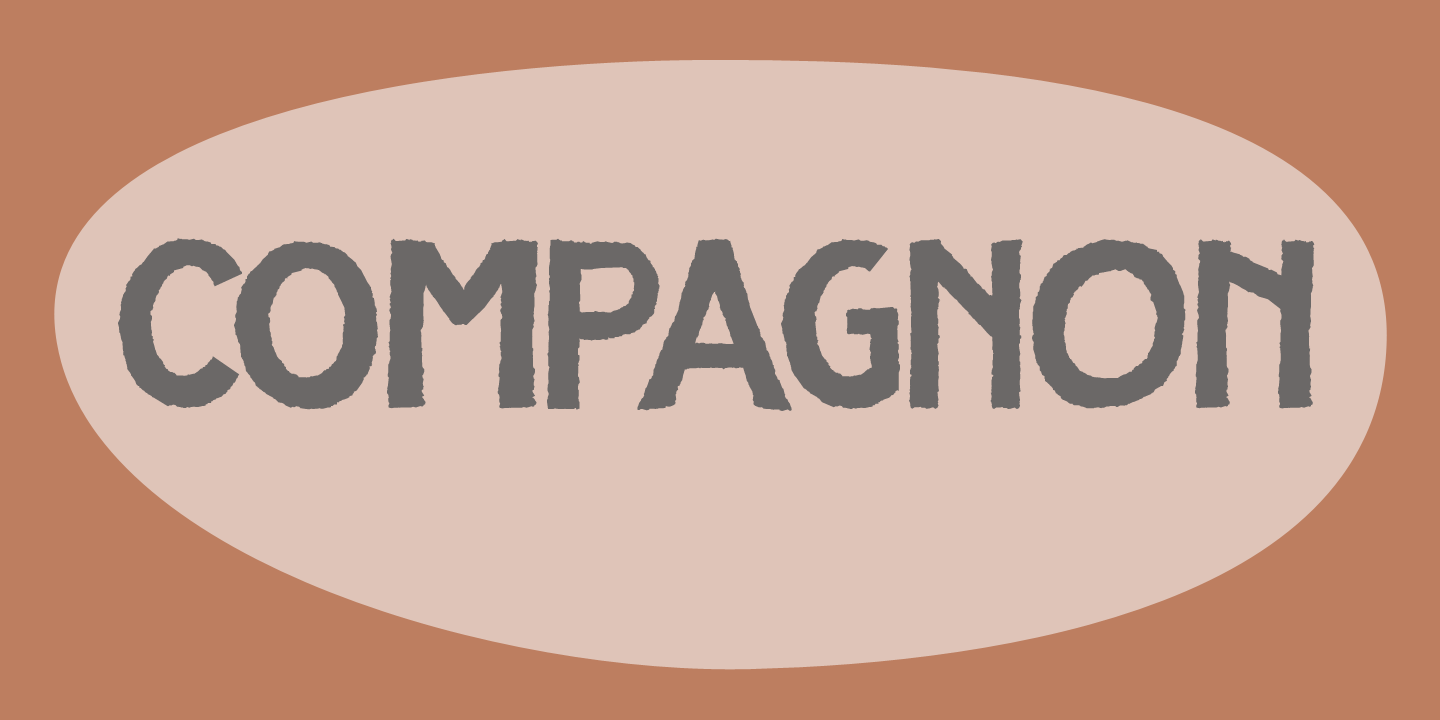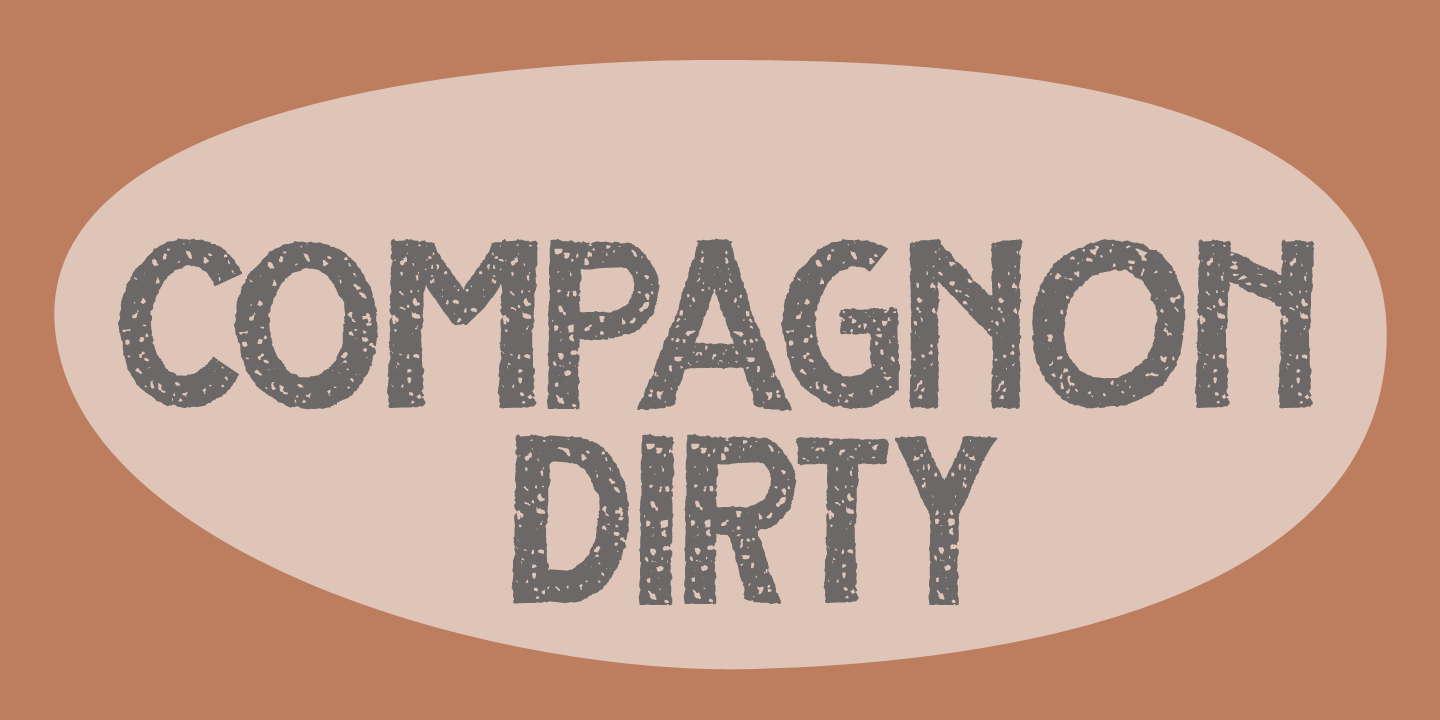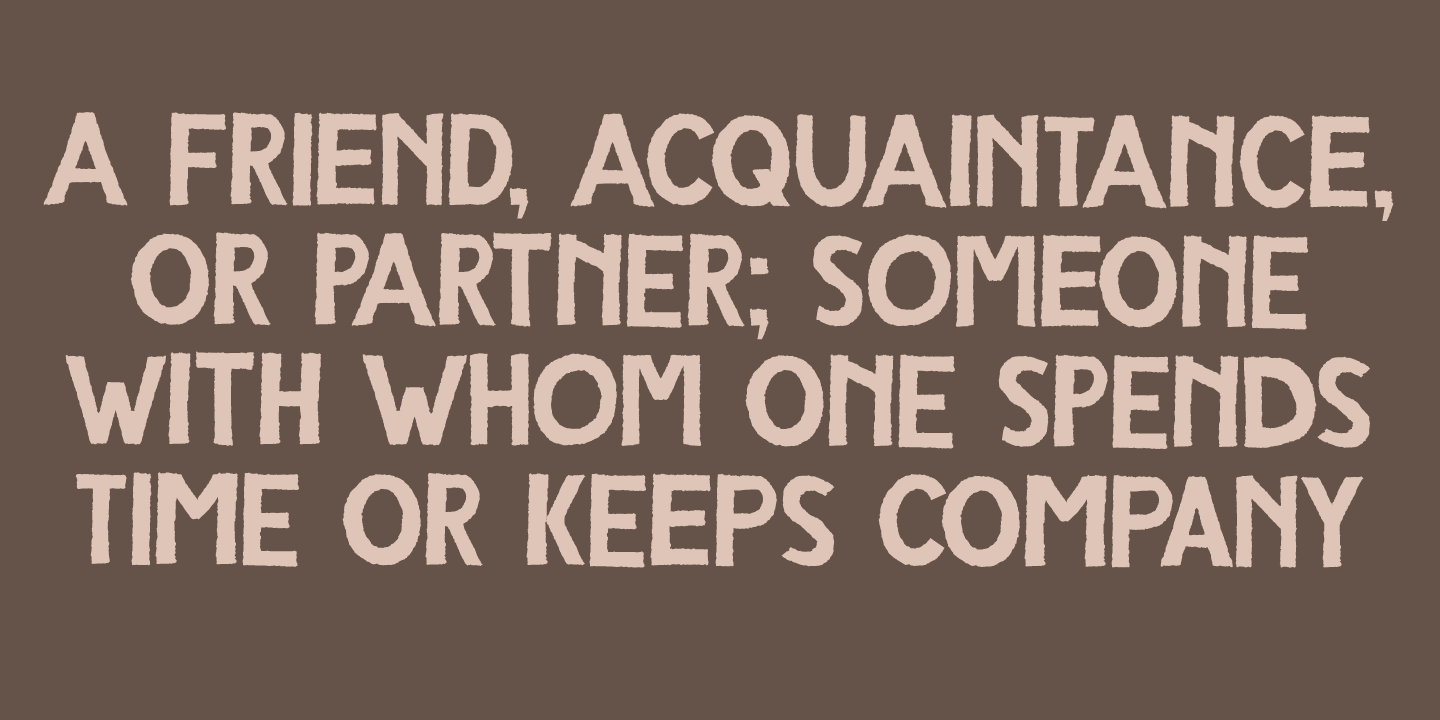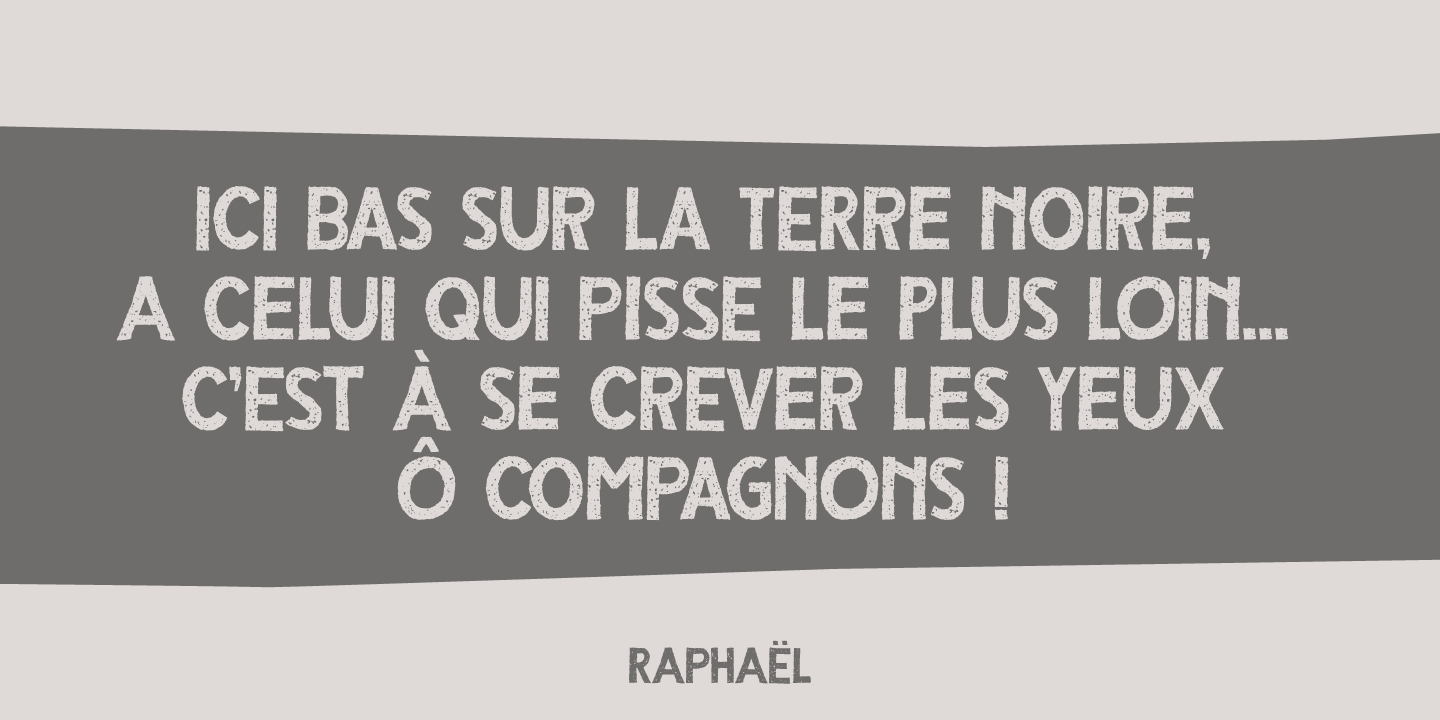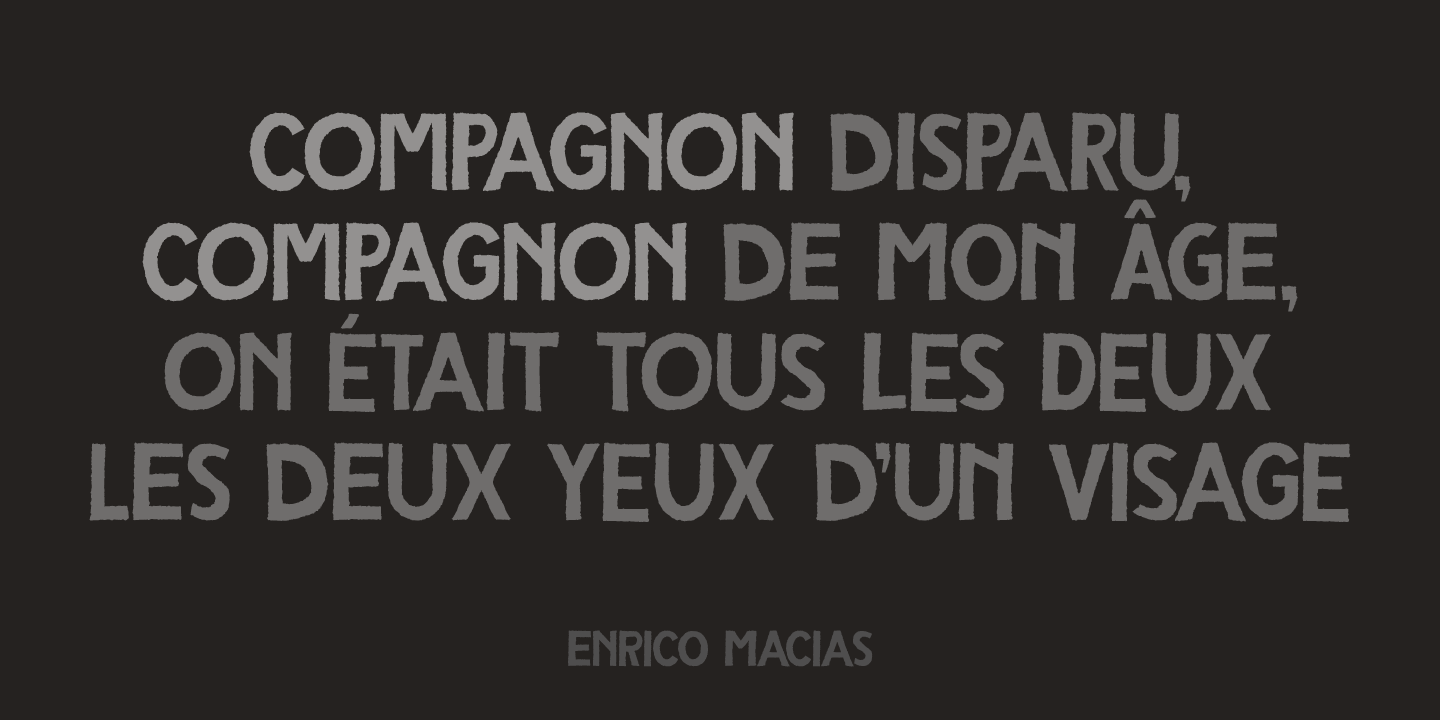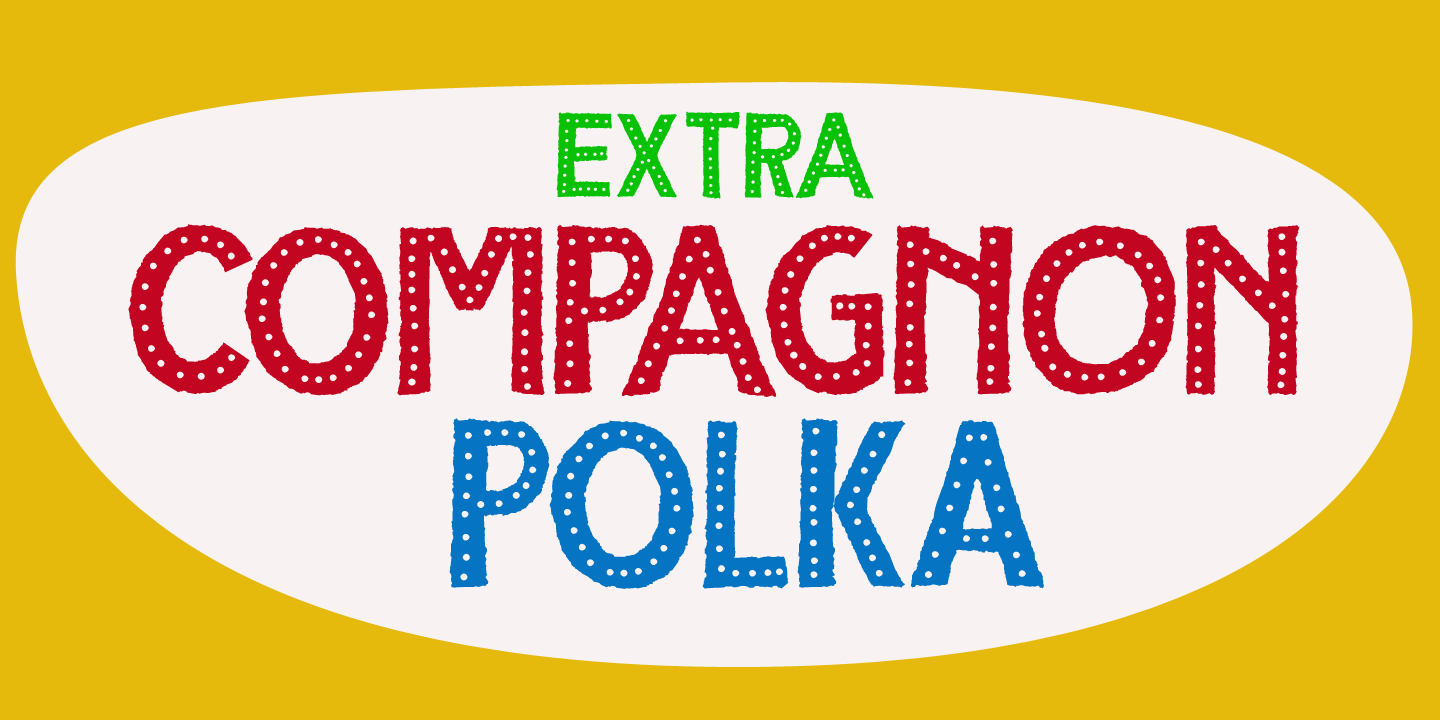
Compagnon
Compagnon is a friend, a partner. This handmade display font will come in super handy when you are working on that book cover, or the packaging of a product. It will shine on posters and websites and it will keep you warm at night. I guess that last bit is an exaggeration?
Compagnon comes in three distinct styles: a 'regular? version, which is a bit rough around the edges, a ?dirty? version, with a juicy eroded look and a polka dot version. All three have their accompanying italics.